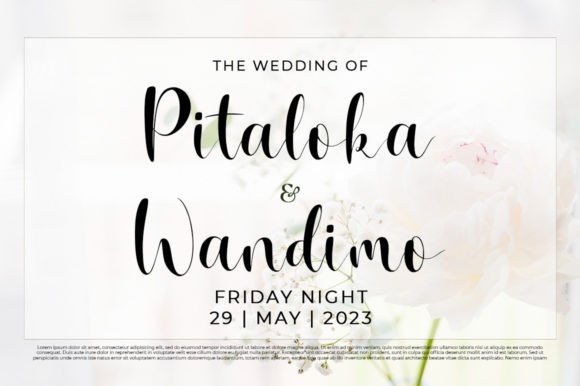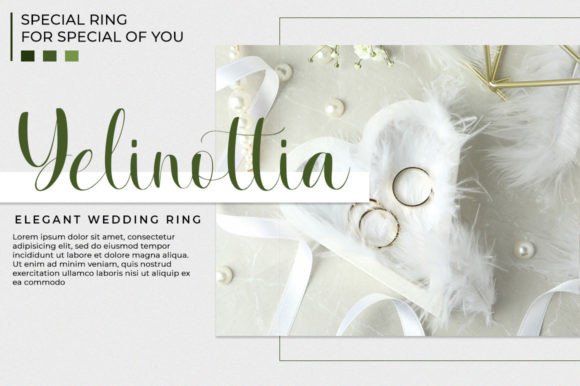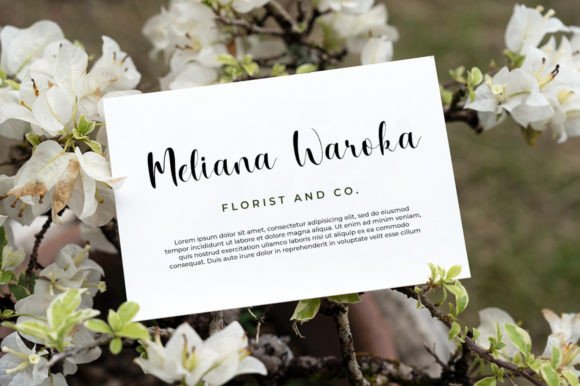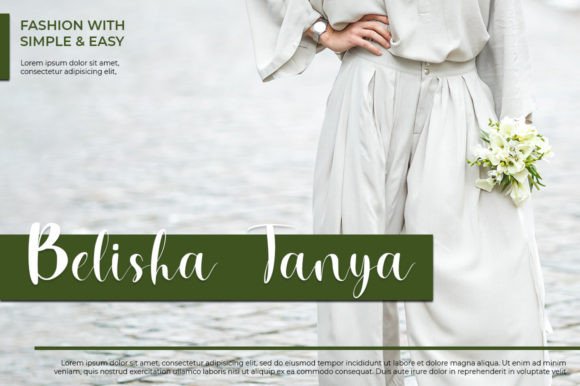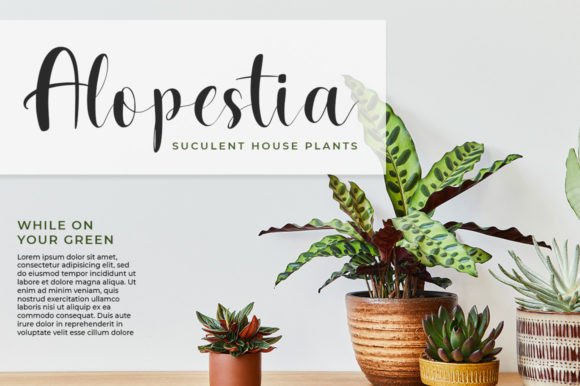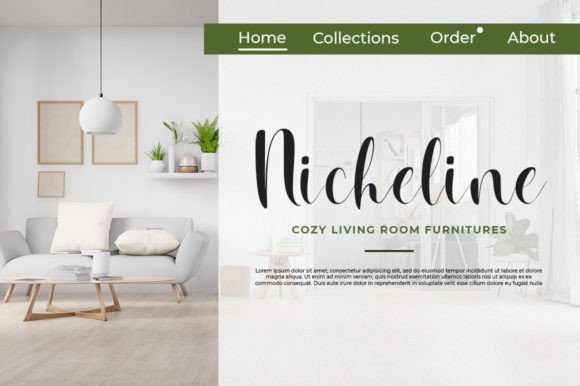
Introduction to Opheliane Font
Opheliane is a stylish and incredibly elegant script font.
Key Features of Opheliane Font
Why Choose Opheliane Font?
Opheliane Font offers exceptional quality and versatility, making it a valuable addition to your design toolkit. Whether you’re creating for personal projects or commercial use, Opheliane Font delivers professional results.